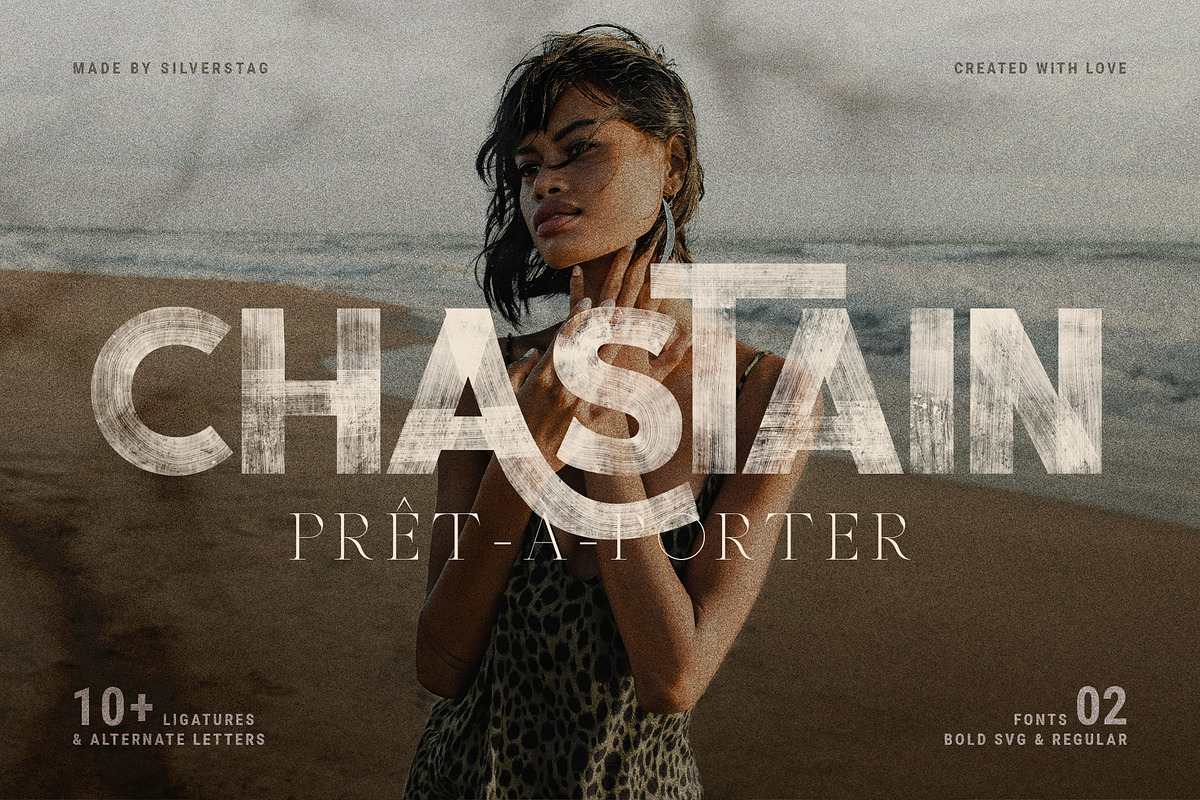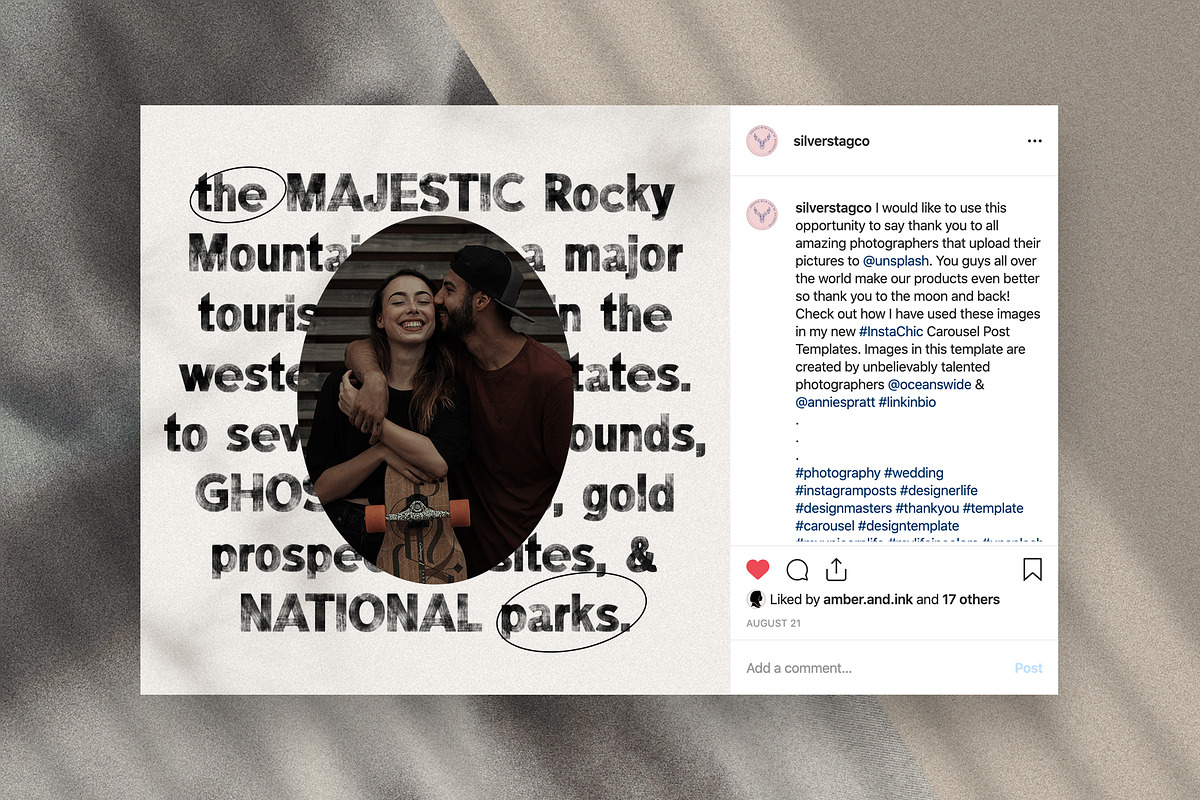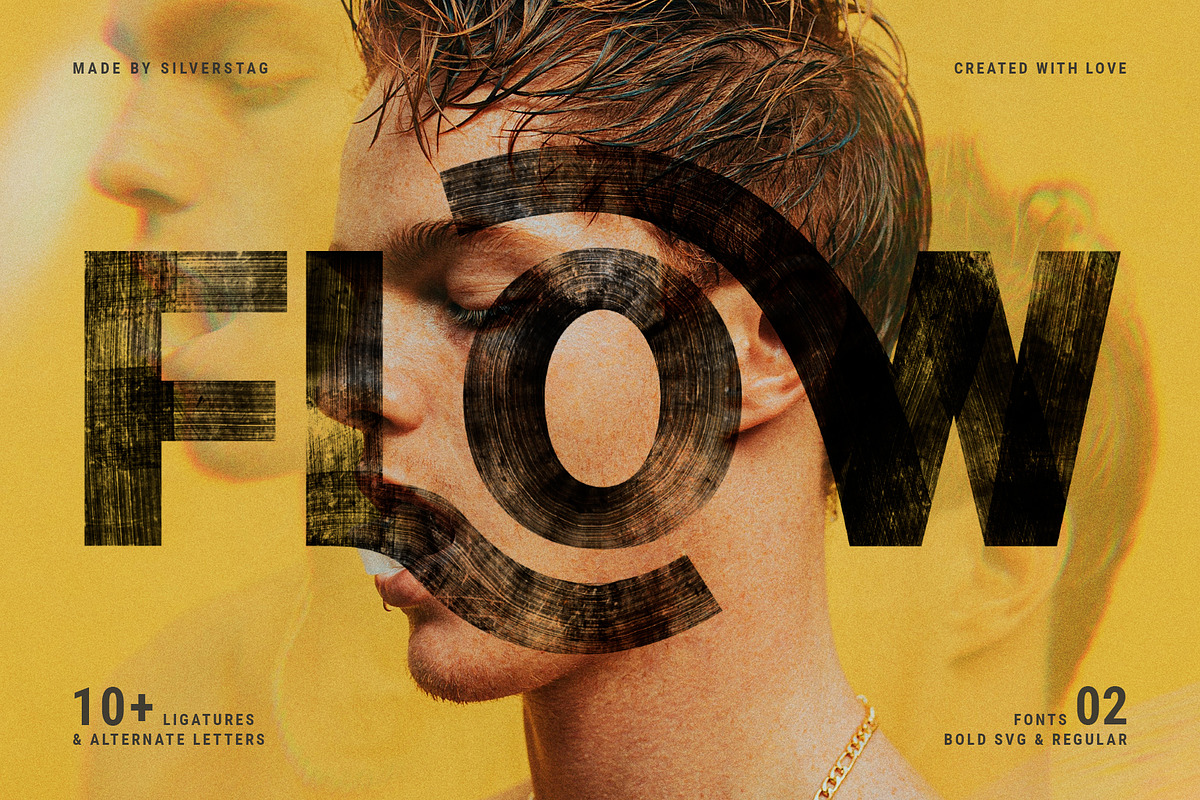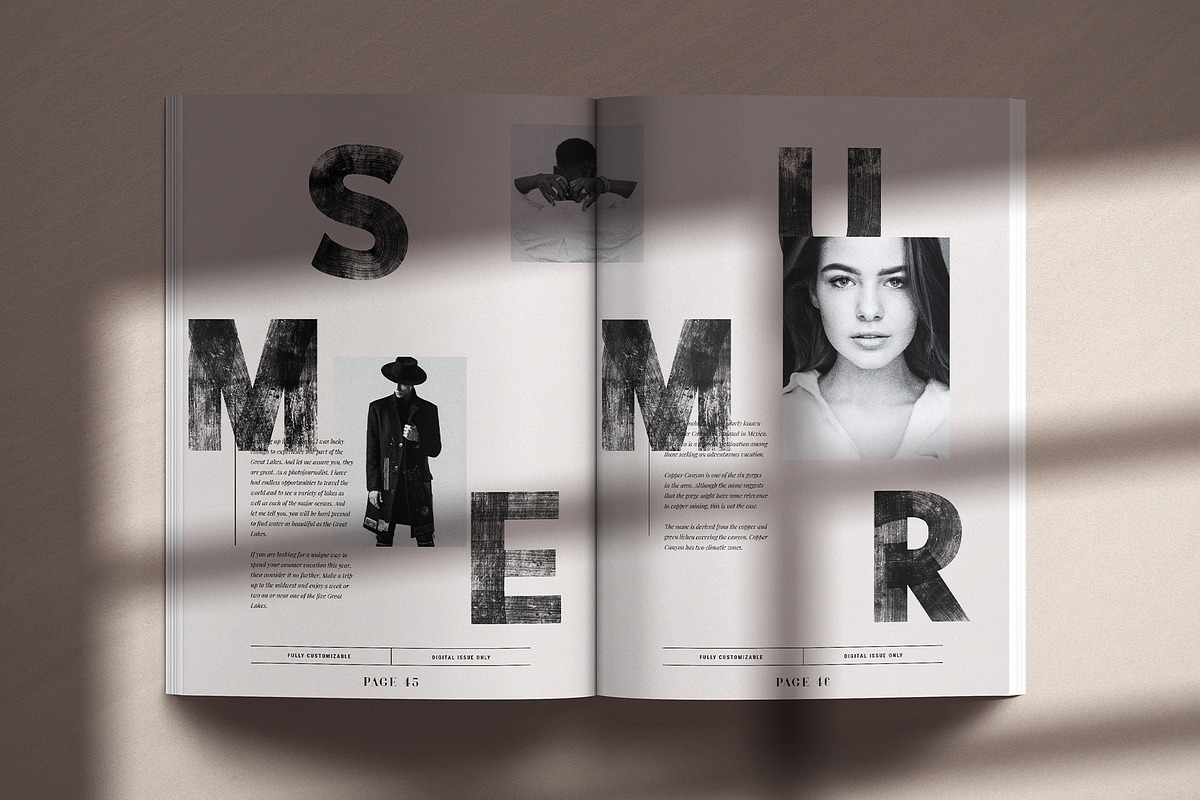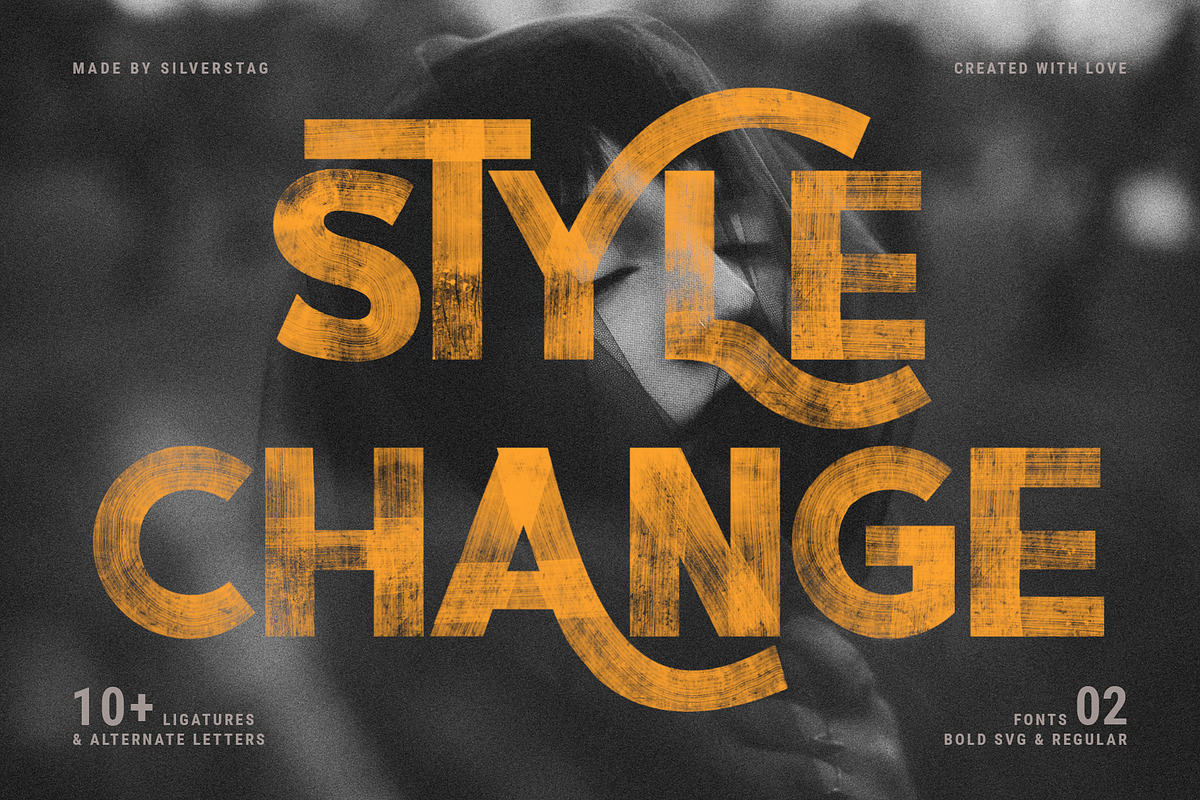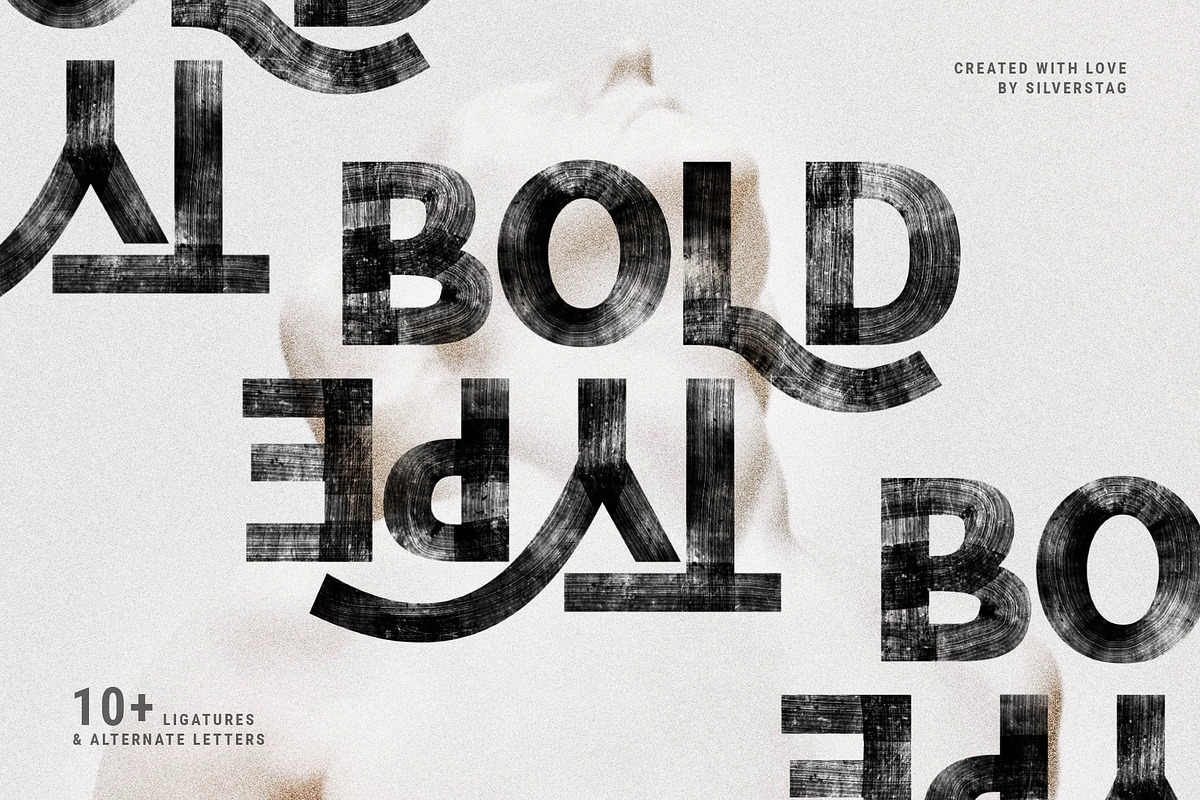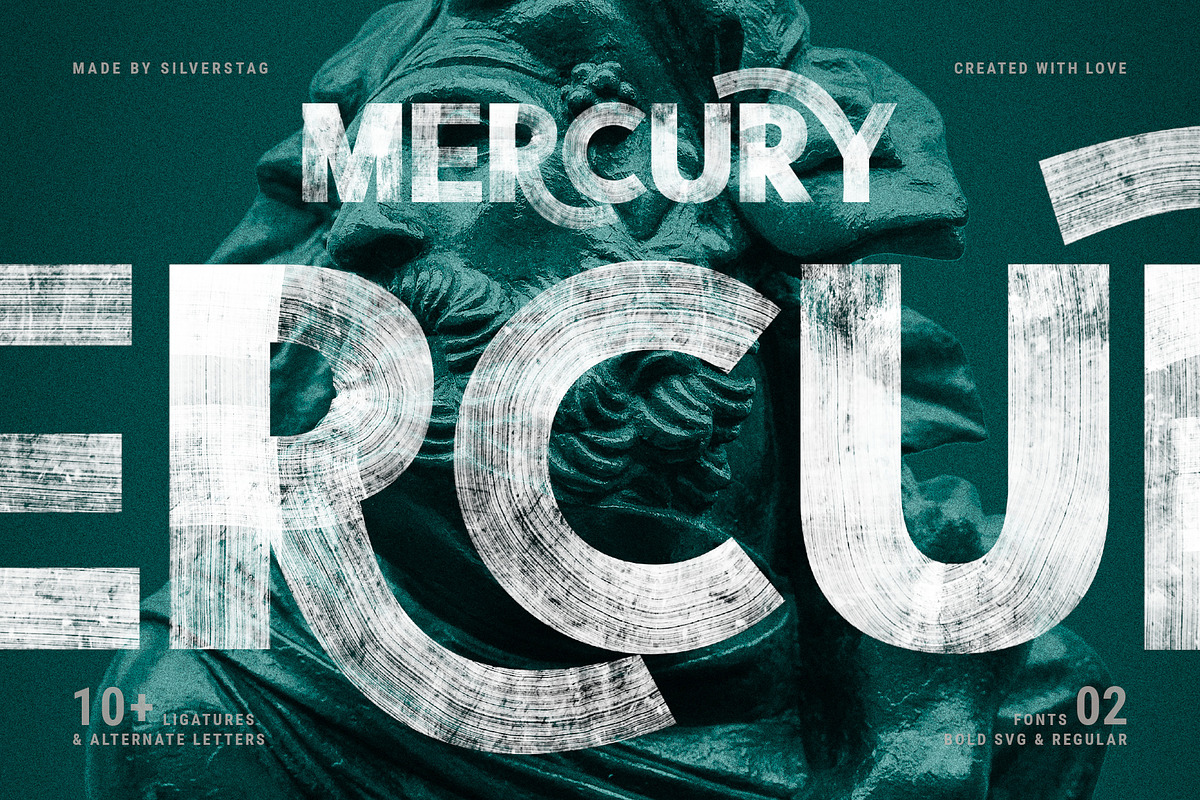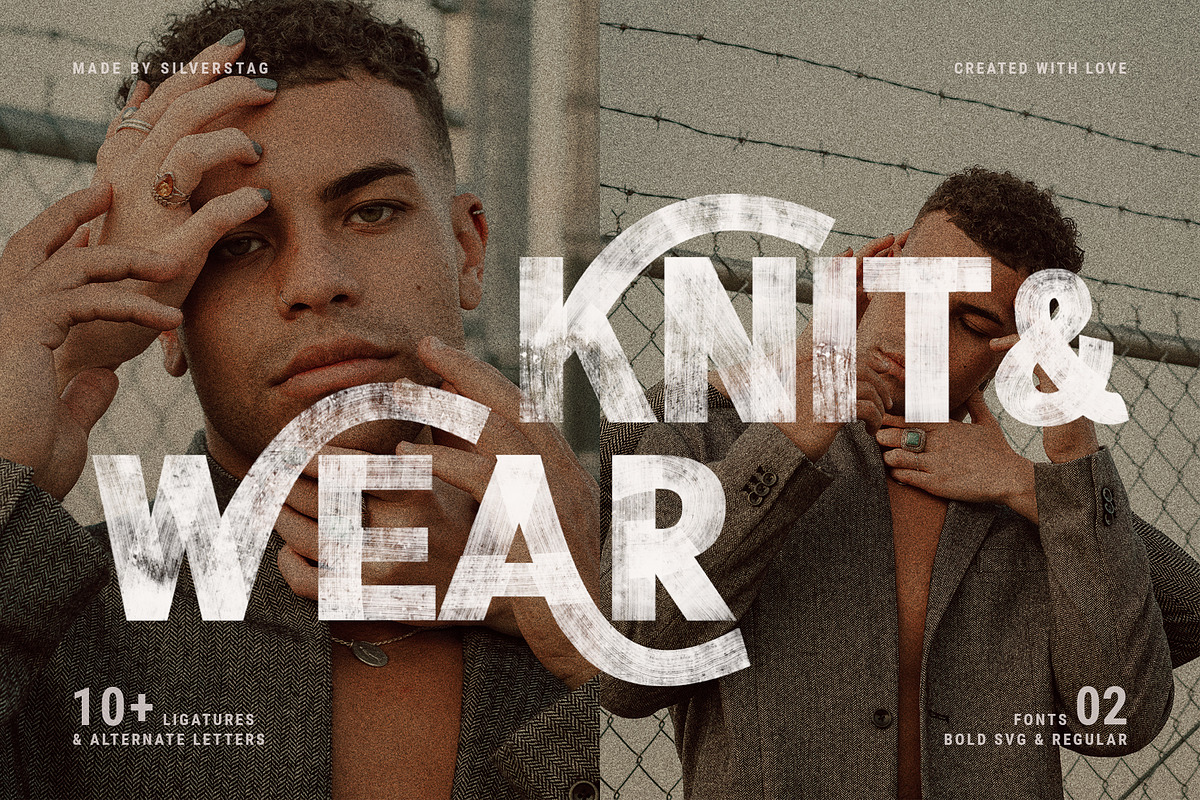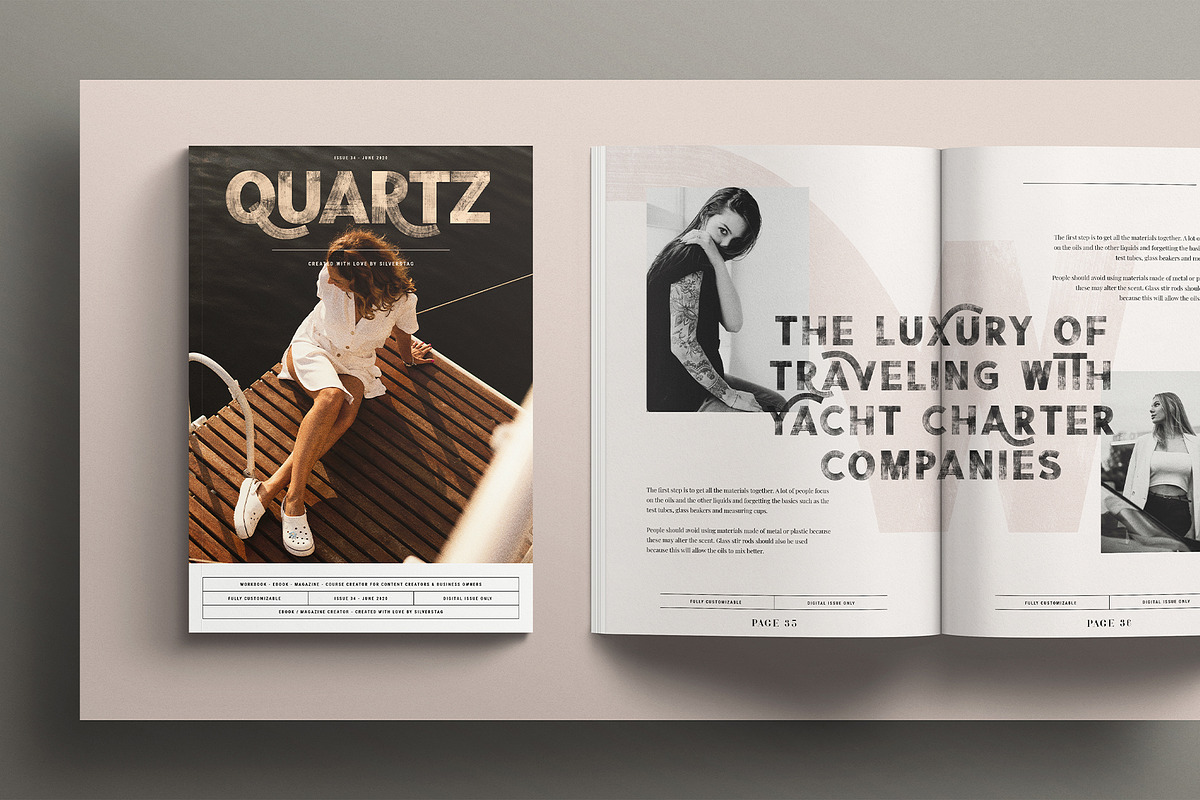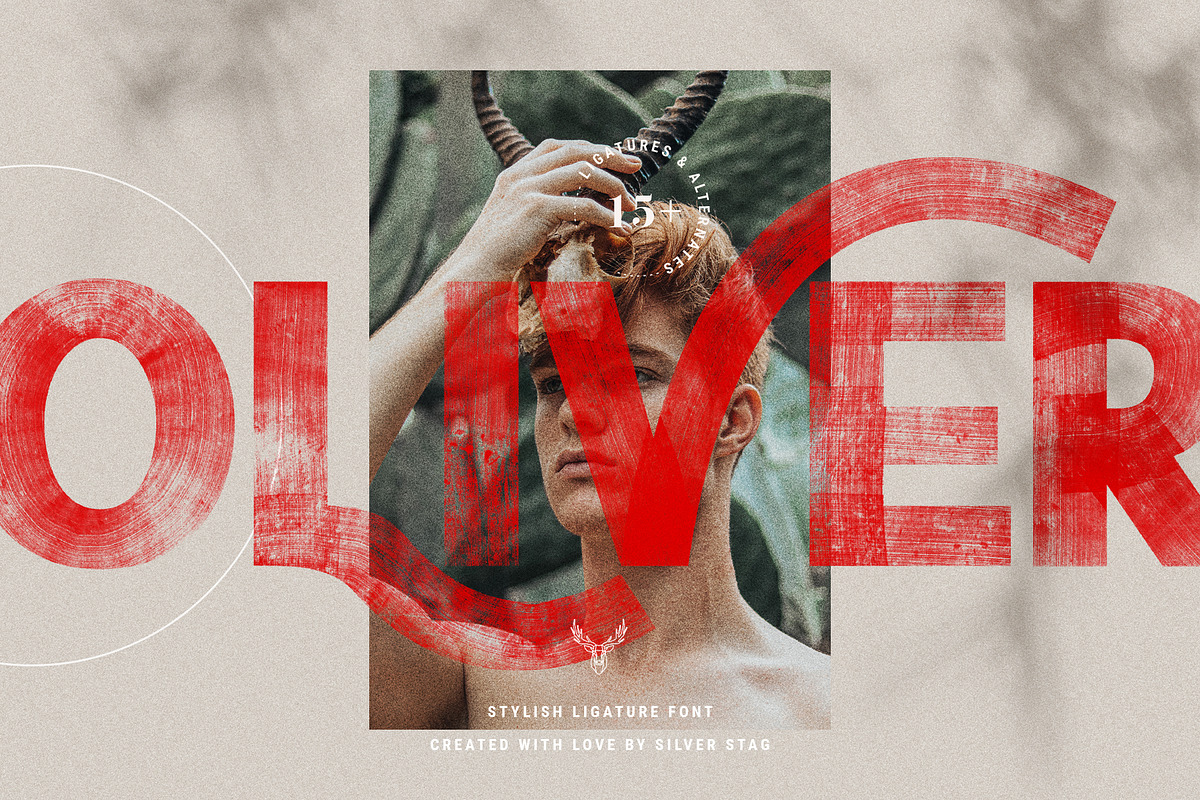
LYON & CREST - HandPainted SVG Type
Hey everyone, are you ready for a brand new look and unique perspective in your typography? Look no more, LYON & CREST is my new handprinted SVG font that will make each of your projects 100% unique!
I am supper happy to present you my brand new, handprinted SVG font. It is something I have been working on for quite some time now and I am sure you'll enjoy it's unique and playful look! The true handprinted look will elevate your work and help you create some new and unique designs.
15+ Ligatures and Alternates for a unique handwritten look and feel